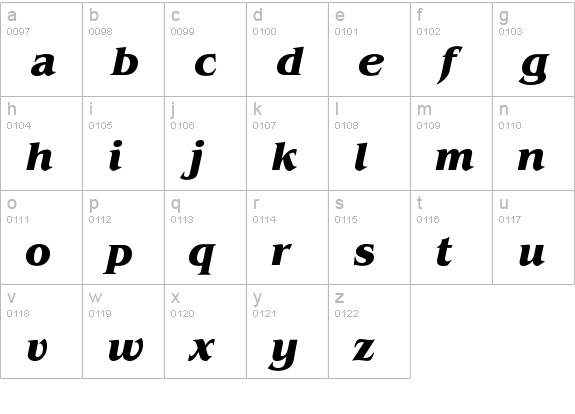
The BenguiatEF-BoldItalic font exudes an air of bold elegance with its distinctive slanted design and strong strokes. Its italicized form adds a touch of sophistication to any text, making it ideal for conveying a sense of style and authority. This font is perfect for creating eye-catching headlines, elegant invitations, or stylish logos. What sets BenguiatEF-BoldItalic apart is its ability to seamlessly blend modernity with a touch of classic charm, making it a versatile choice for various design projects. Whether you're working on a sleek branding campaign or a refined editorial layout, this font will effortlessly elevate your work to the next level. Best of all, BenguiatEF-BoldItalic is available for free download at FontsMarket.com, making it easily accessible for designers and creators looking to add a touch of elegance to their projects without breaking the bank. Download this font today and unleash your creativity with its bold and stylish appeal.